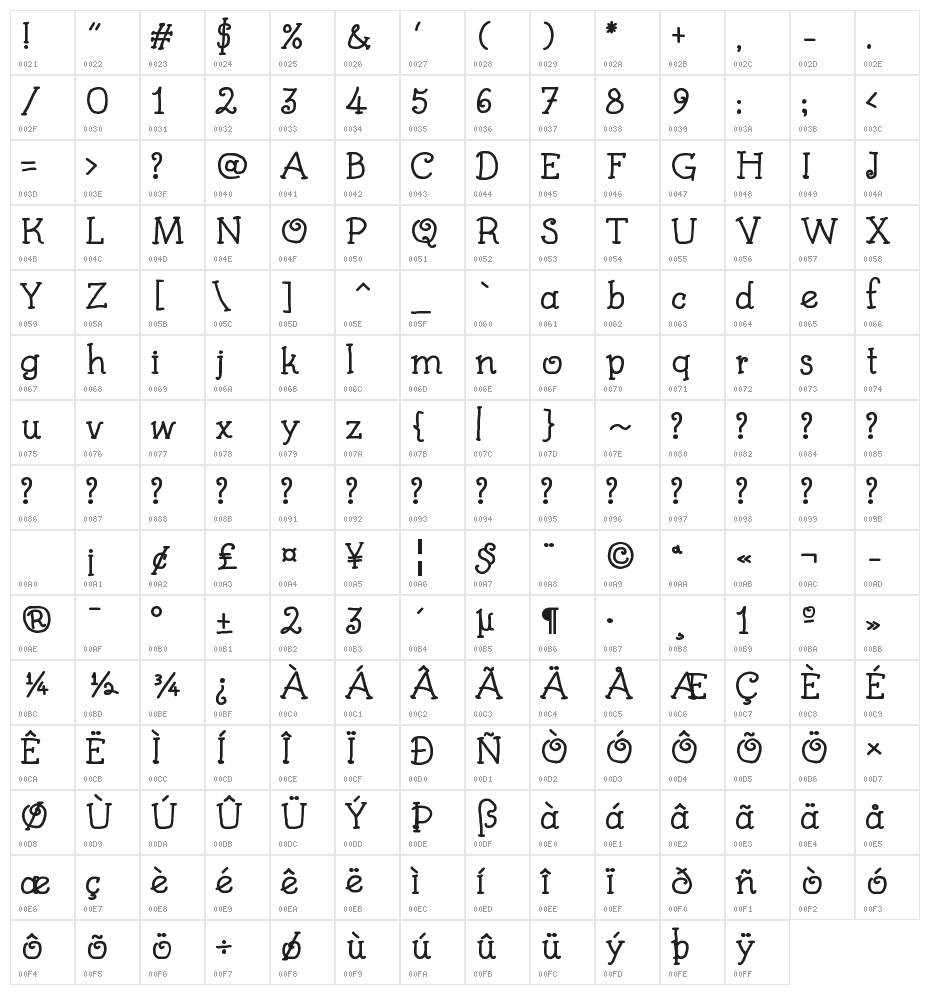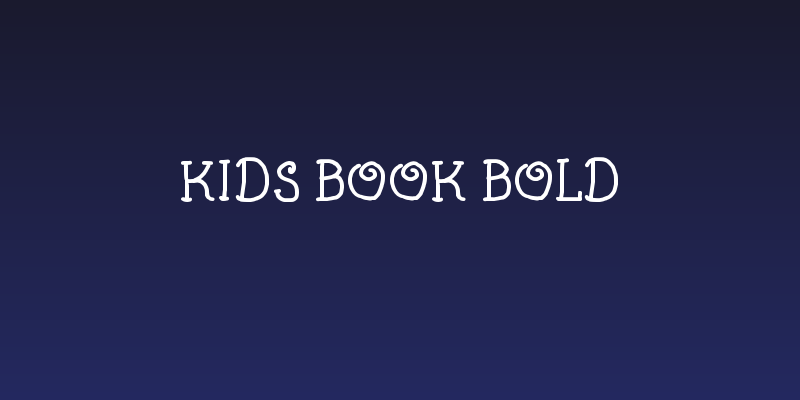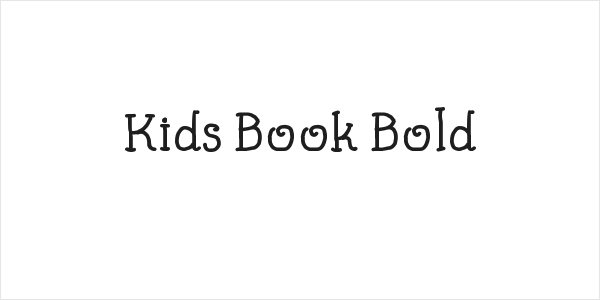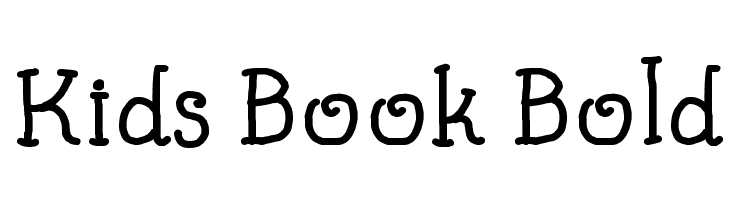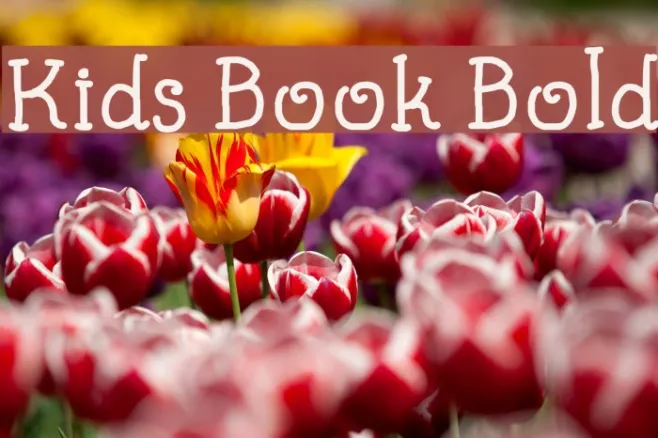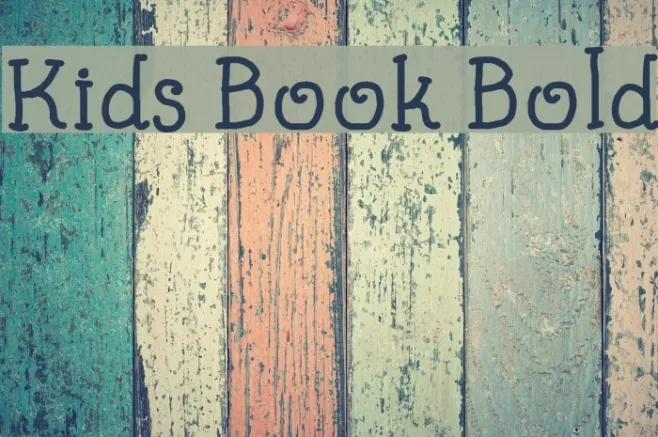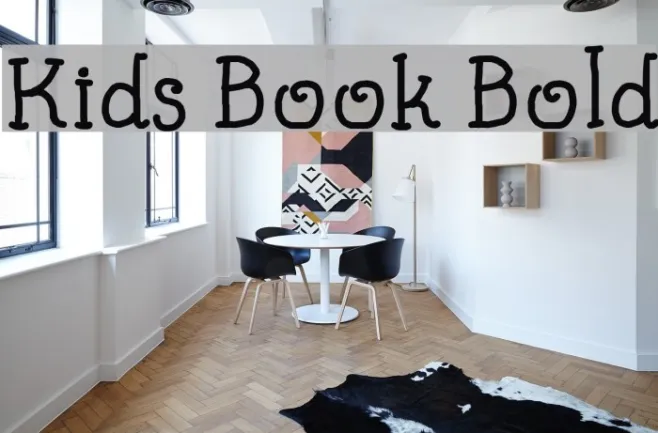
Kids Book Bold Font
Kids Book Bold Description
This playful and whimsical font features a hand-drawn style with a bold presence, making it ideal for children's materials. The characters are rounded and slightly irregular, giving a friendly and approachable feel. The uppercase and lowercase letters maintain a consistent style, with a slight bounce that adds to the charm. Numbers and special characters are equally playful, with a consistent stroke weight that ensures readability. This font's unique personality makes it perfect for capturing attention while maintaining legibility.
| Use Case | Headlines, Children's materials, Posters |
| Proposed Projects | Ideal for children's books, educational materials, playful branding, and creative posters. |